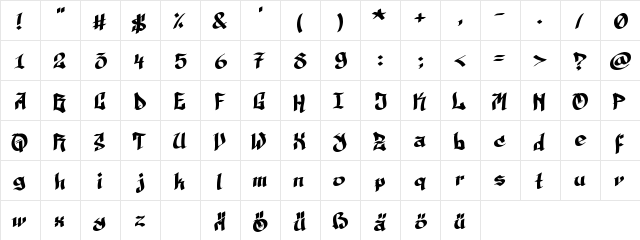
MAREN Regular Font Preview
MAREN Regular
MAREN Regular Font Details
| Foundry | Lukas Schiltknecht |
| Designer | Lukas Schiltknecht |
Design Context for MAREN Typeface
MAREN is a composed and adaptable typeface that performs quietly and consistently across a wide range of design contexts.